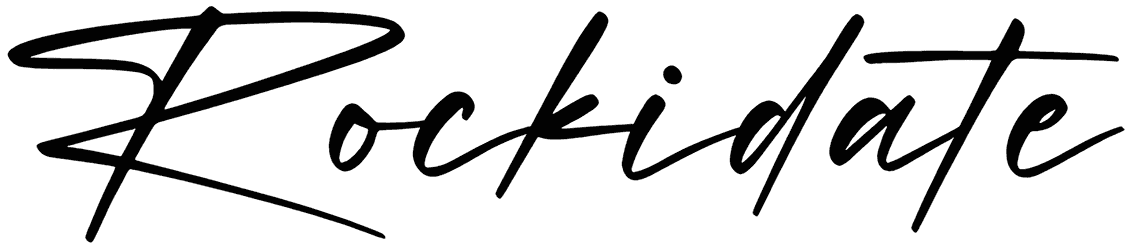
Rockidate Font
Rockidate is full of bold handwriting, covers, and angles, and is ready to make one of the most magical projects for you. This handwritten font is different from anything you have seen, and its two styles can give new life to your collection.
So whenever you need to create short titles or want to write a letter in a different tone, take help from this 80s font. Its illegibility has made it somewhat challenging for body texts or long writings.